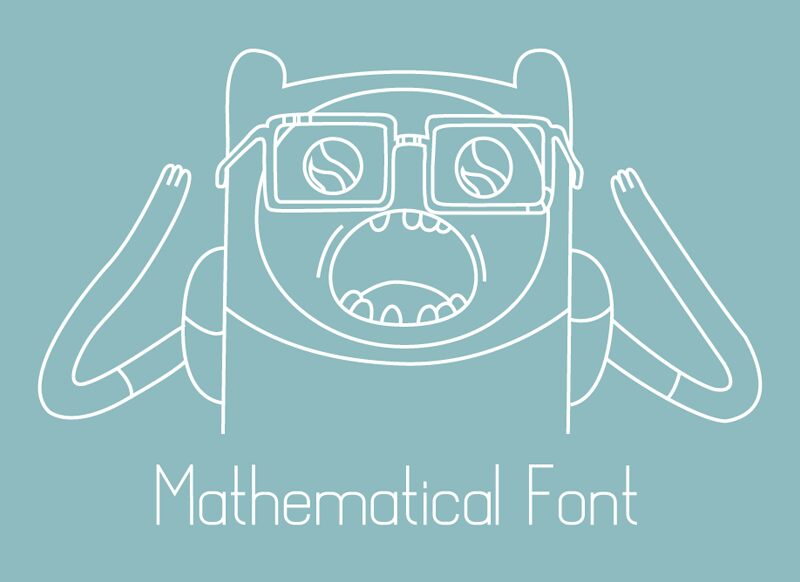
The Mathematical font, designed by Nathan Thomson, exudes a captivating blend of sophistication and modern flair. This sans-serif, light-weight typeface boasts clean lines and a harmonious balance, creating a visually striking and elegant impression. The font's unique curvatures and weighted strokes imbue it with a sense of refined precision, making it an alluring choice for a wide array of design projects.
The Mathematical font's versatility shines through its ability to seamlessly integrate into various design contexts, from editorial layouts and corporate branding to digital interfaces and packaging designs. Its clear legibility and subtle personality make it an ideal complement to both text-heavy and visually-driven compositions, allowing designers to craft impactful and cohesive visual experiences.